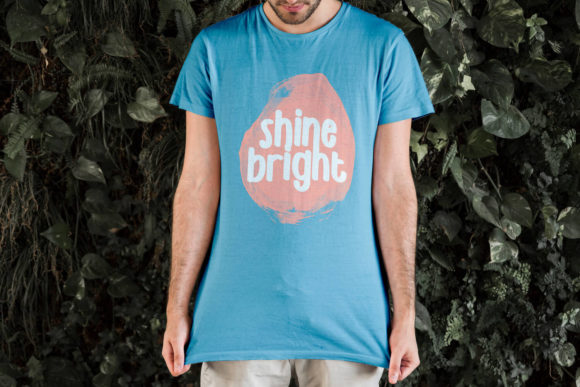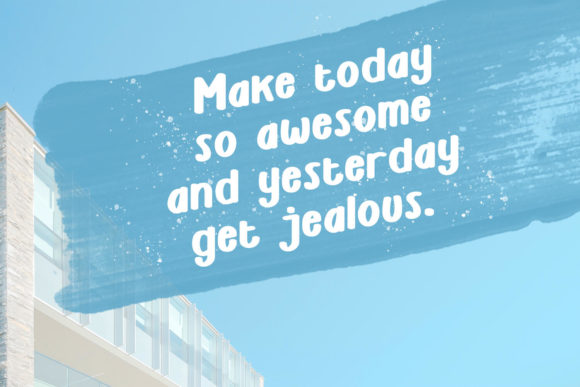
About Geky Xin Font
Geky Xin is a bold and straightforward handwritten font that adds a touch of authenticity and realism to your designs. With its clean and confident letterforms, this font is perfect for making your ideas come to life and creating visually striking designs.
The boldness of Geky Xin makes it stand out and grab attention, whether it’s used for headlines, logos, posters, or other design elements. Its simplicity adds to its versatility, allowing it to complement a variety of design styles and themes. Whether you’re going for a modern, casual, or playful look, Geky Xin can adapt and enhance your design with its bold and impactful presence.
The font being PUA encoded means that you have easy access to all the special glyphs and swashes it offers. This provides you with additional creative possibilities and allows you to customize your designs further. You can easily access and use the extra characters and flourishes to add unique touches and make your designs even more dynamic and visually appealing.
Geky Xin is a font that combines simplicity and boldness, making it an excellent choice for creating spectacular designs. Its clean and straightforward style ensures that your messages are conveyed clearly and effectively, while its handwritten quality adds a human touch and warmth to your designs.
Whether you’re designing digital graphics, advertisements, product packaging, or any other creative project, Geky Xin will help you bring your ideas to life with its realistic and impactful appearance. Embrace the boldness and simplicity of Geky Xin to create stunning designs that captivate and engage your audience.